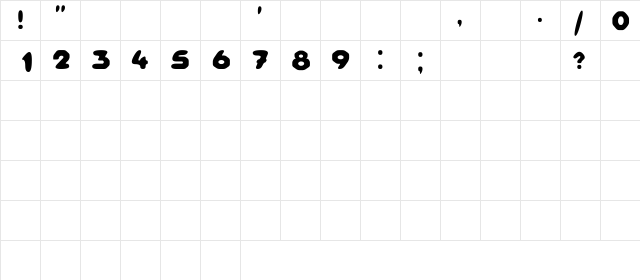
ANS shenkin Regular
Design Context for ANS shenkin Typeface
ANS shenkin takes a measured approach to typography — its balanced proportions and neutral character make it a reliable workhorse for both digital and print work.